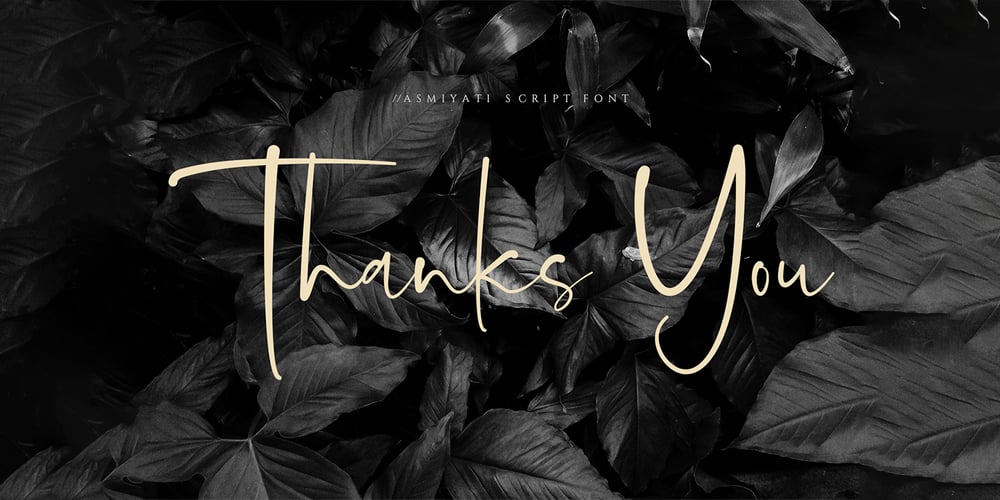
Asmiyati Font Family was designed by Muhammad Husni Haikal and published by Graphicfresh. Asmiyati contains 2 styles and family package options. Asmiyati Script Font – A Handwritting script with a unique character! It’s perfect for logos, name card, magazine layouts, invitations, headers, or even large-scale artwork.